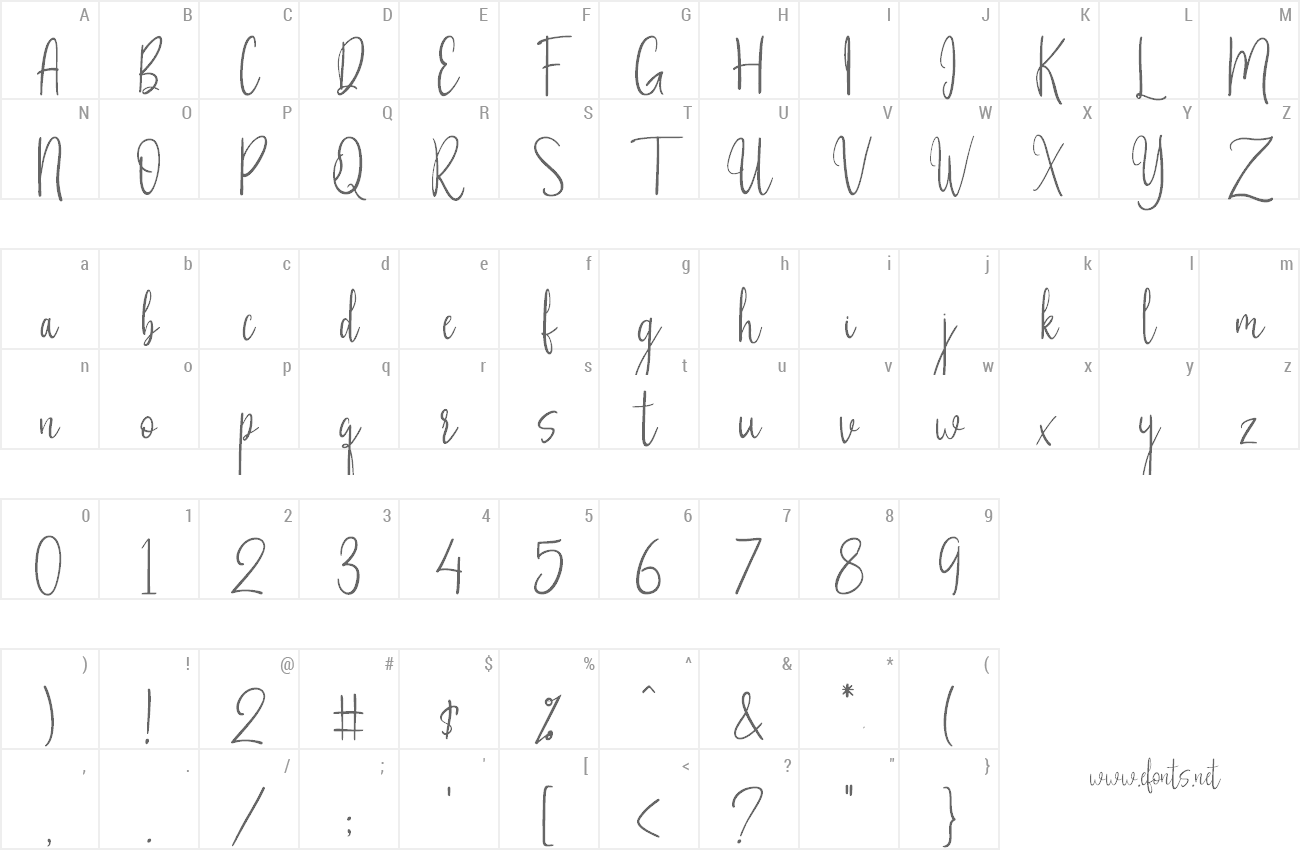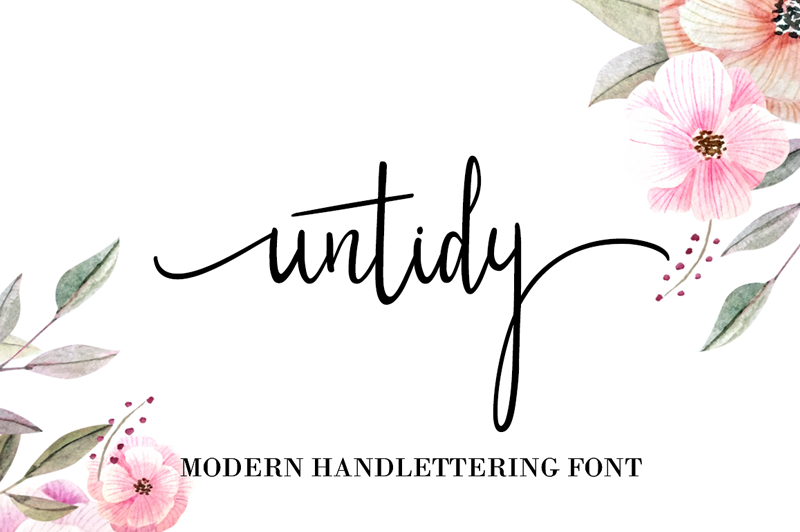
Untidy is a modern handlettering brush style. This script is appear to combine perfectly and allow you to create stunning hand-lettering quick and easy. This font is perfect for modern projects, headings, blogs, logos, brandings, invitations and more ! Please see other fonts here : https://www.creativefabrica.com/designer/fontysia/ |